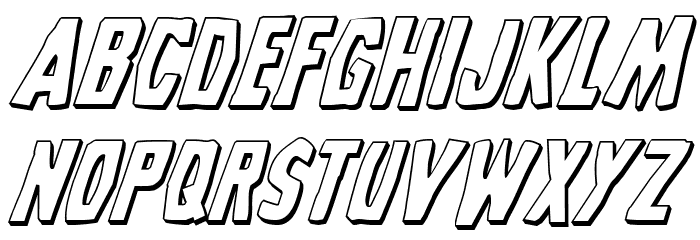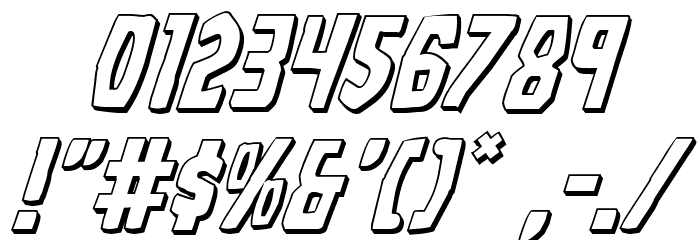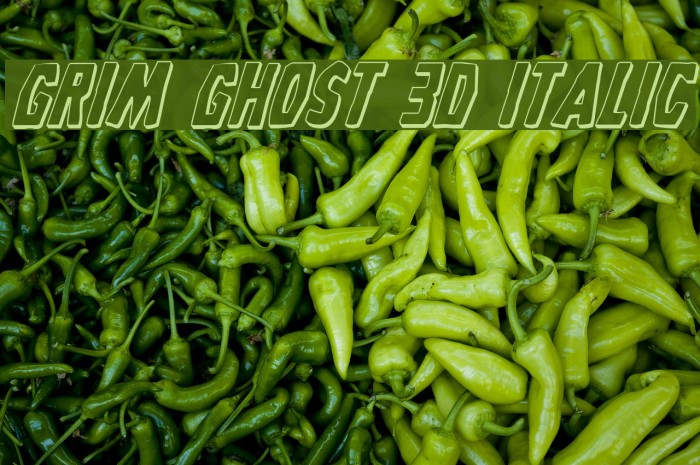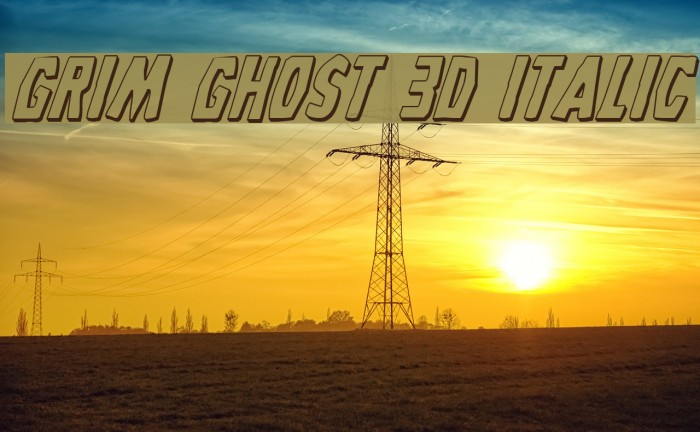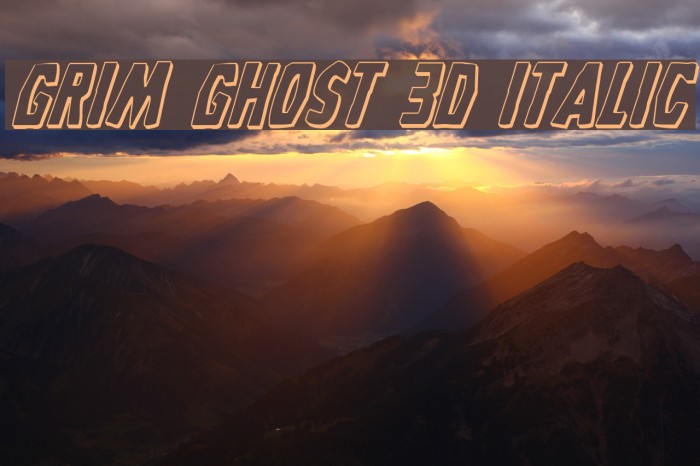
Grim Ghost 3D Italic Font
This font features a bold, three-dimensional design with an italic slant, giving it a dynamic and impactful appearance. The characters are outlined, creating a shadow effect that enhances the 3D illusion. Each letter and number is crafted with sharp angles and clean lines, contributing to a modern and edgy aesthetic. The uppercase and lowercase letters maintain consistent styling, ensuring uniformity across text. The numerals and special characters are designed to match the bold, italicized style, making them suitable for attention-grabbing displays. This font is ideal for projects that require a strong visual presence and a contemporary feel.
Bold, 3D italic font with sharp angles and a modern aesthetic.
- Proposed Projects: Perfect for posters, headlines, logos, and any design needing a bold, modern touch.